Recently, we decided to ask our authors several questions about their work and type design in general. Designers whose fonts are not on our storefront heard about this and asked to participate as well. This is how our small, (un)representative survey came about, exploring what the font community is thinking about and what it looks like today.
We asked designers to respond to 20 questions, none of which were mandatory. All the questions were open, but the responses to many of them were so unanimous that we were able to turn the collected answers into charts, which (along with some of the most interesting answers) we are sharing in this series.
How would you describe today’s type design community?
- Anna Seslavinskaya
- Be Unicorn, creative director
Author of Healthgoth
Well-known for being the nerdiest of all design communities, guardians of the history of writing, and hard workers. The entry bar to enter this club is pretty high, even if the tools are available.
There is Monotype (that I don’t get) and the rest is a bunch of independent, small individuals that I love very much — also how the community is sharing knowledge and experience (possibly ‘cause we’re all after passion, not the money in the first place).
- Paul Eslage
- Type and communication designer
Co-author of Halvar
I think it’s great that type designers all over the world seem to be happy to support each other. The community is also becoming more diverse and therefore even more inspiring. For me, type design is a club of nerds where everyone is welcome.
- John Hudson
- Tiro Typeworks, co-founder
A lot of people came together recently to raise the funds to help a colleague escape from Gaza with his children, so I am feeling really positive about the community right now. At the same time, I am concerned about the pressure on the business, about the kinds of contracts type designers are being asked to sign, about the apparently random pricing models in use by different distributors, and other things.
What other skills does a type designer need (other than drawing type)?
- Hugues Gentile
- Production Type, senior type designer
Author of Qommodore. Co-author of Signal, Proto Grotesk
Not needed per se but definitely helpful: linguistic knowledge of the script you’re designing for, Python coding. Good time management and communication are always a plus for any job.
- Paul Eslage
- Type and communication designer
Co-author of Halvar
I think as someone who designs fonts, you must never lose touch with the use of fonts. A good feel for the zeitgeist and for what kind of typeface is in demand and how it is used seems to be extremely important.
- Álvaro Franca
- Vasava Studio, type director
Naipe Foundry, co-founder
Research, patience, post-production, a desire to keep learning, an open mind, business and management skills, communication.
- Fer Cozzi
- Type designer, lettering artist
Author of Tomasa
Programmatic, systematic thinking and consistency. (Almost) anyone can draw letters, not everyone can turn them into a functional system.
How is a good type designer different from a bad one?
- John Hudson
- Tiro Typeworks, co-founder
I see a lot of clumsy type designs made by beginners — who are not bad type designers: they just have not yet become good ones, they are trying to make fonts without having taken the time to look. Maybe some people fear that if they spend too much time studying existing typefaces, their own will be derivative and unoriginal, but understanding how things have been made, and gaining insight into the decisions that went into making something, informs good work. I am reminded of reading how Bob Dylan spent years learning old folk songs before he started writing his own.
A good type designer cares about making typographic raw materials for use in design. A bad type designer cares about making cool letters for their own gratification, without thinking of the eventual use. I don’t think it’s about the level of craft or necessarily the quality of the execution.
- Denis Bashev
- Designer, art director
Author of Windward
I would have answered differently before. But now I think that there are no bad type designers. Only if the designer does not fulfill his obligations given to their parents, or their partner calls them bad in sexual games. There are also no bad fonts, just inappropriate ones.
- Rutherford Craze
- Mass-Driver, founder
A good type designer cares about originality, quality, and type design in general, not just trends and profit.
How can Al be of use to a type designer in their work?
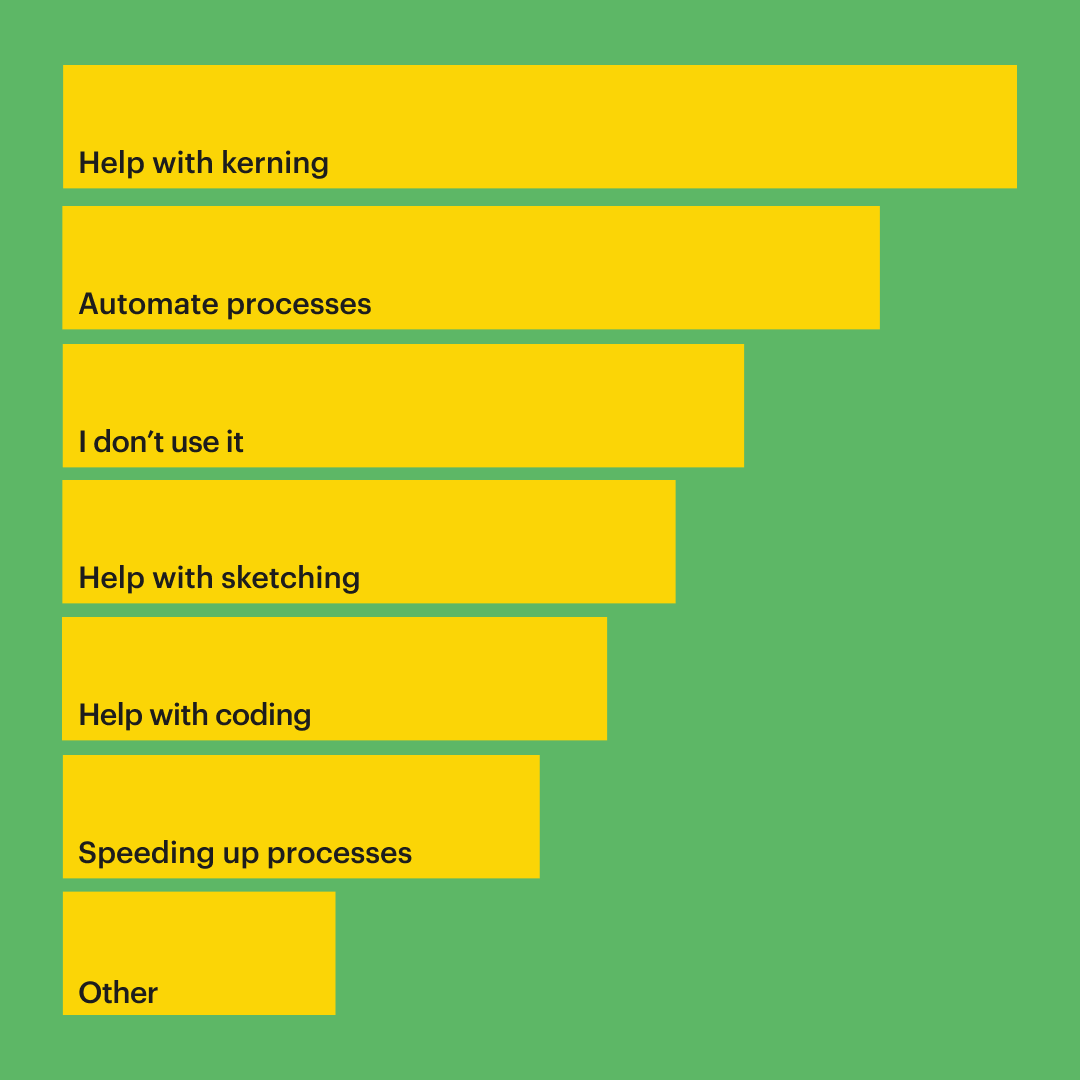
- Jean-Baptiste Levée
- Production Type, founder
Co-author of Tesseract, Spectral, Proto Grotesk
Type design is no different than the other fields where AI has landed. So for now, it’s replacing low-level tasks with various degrees of success. Soon, it will be a precious companion for development tasks.
- Hugues Gentile
Moscow or Saint Petersburg. Mainly because nowhere else was I susceptible to another script that I’m able to decipher like in those cities. Everything felt designed to me.
Lettering in Saint Petersburg that was one of the references for Philipp Neumeyer’s Norbert Collection
- John Hudson
- Tiro Typeworks, co-founder
Possibly Prague, but I tend to seek out graveyards and church memorial plaques wherever I go, so most places provide interesting lettering experiences.
Holy Trinity Column in Prague. Photo by John Hudson